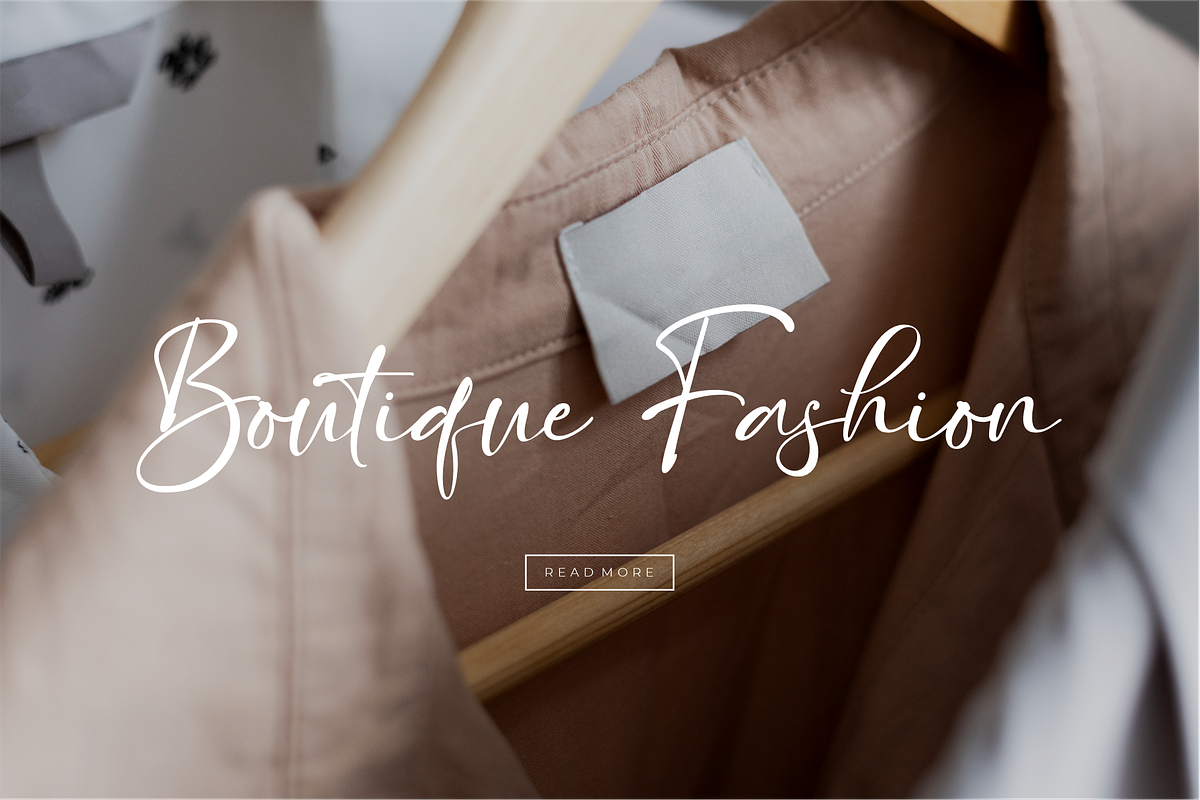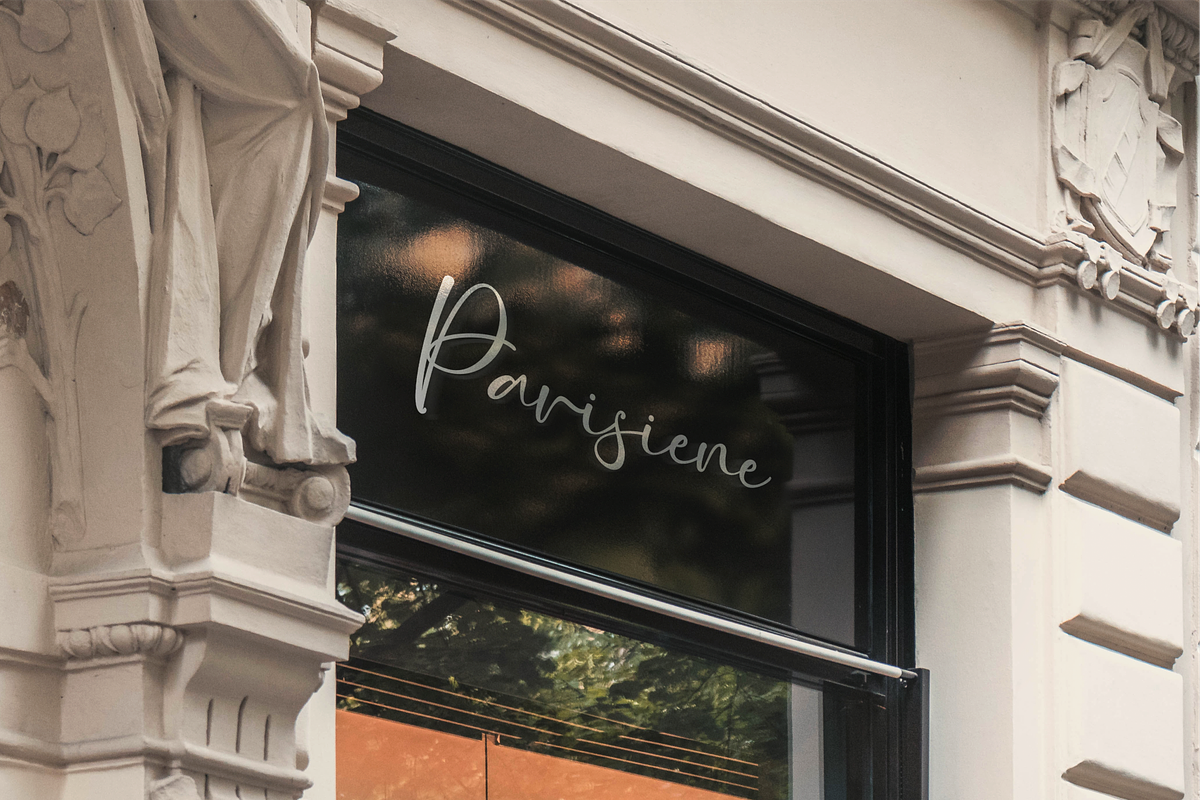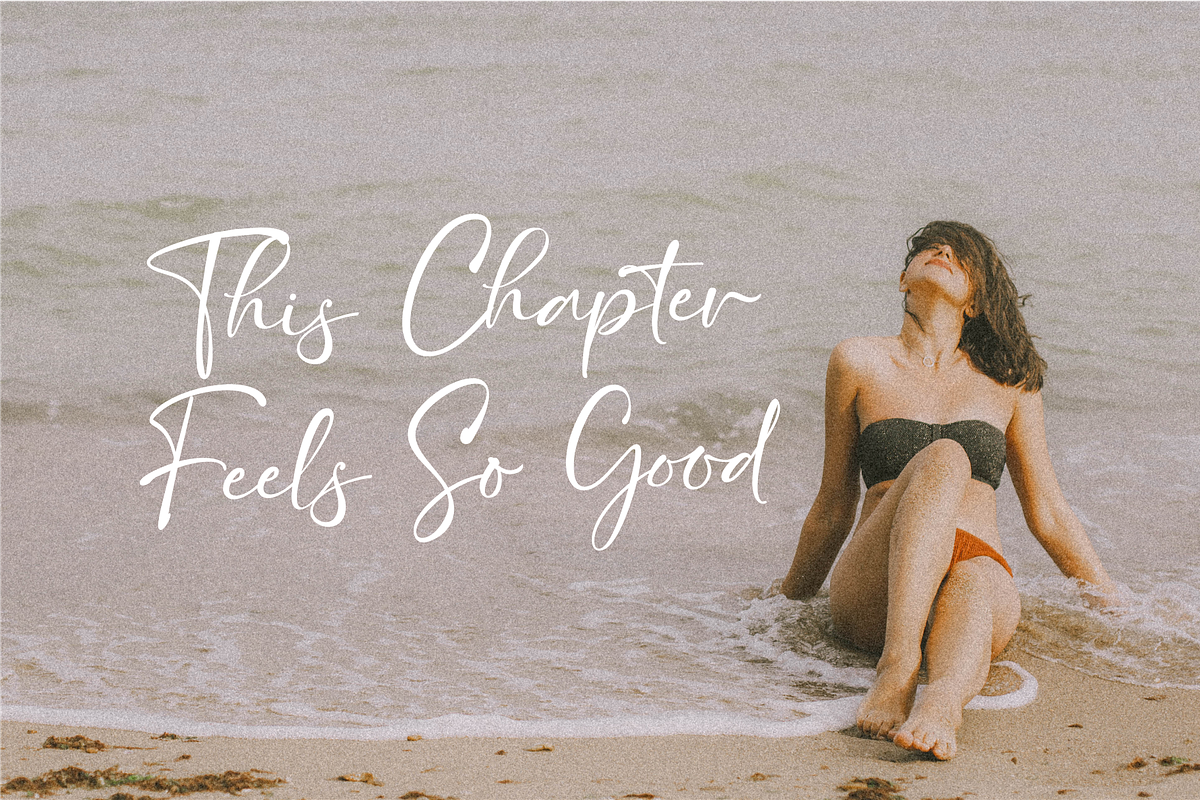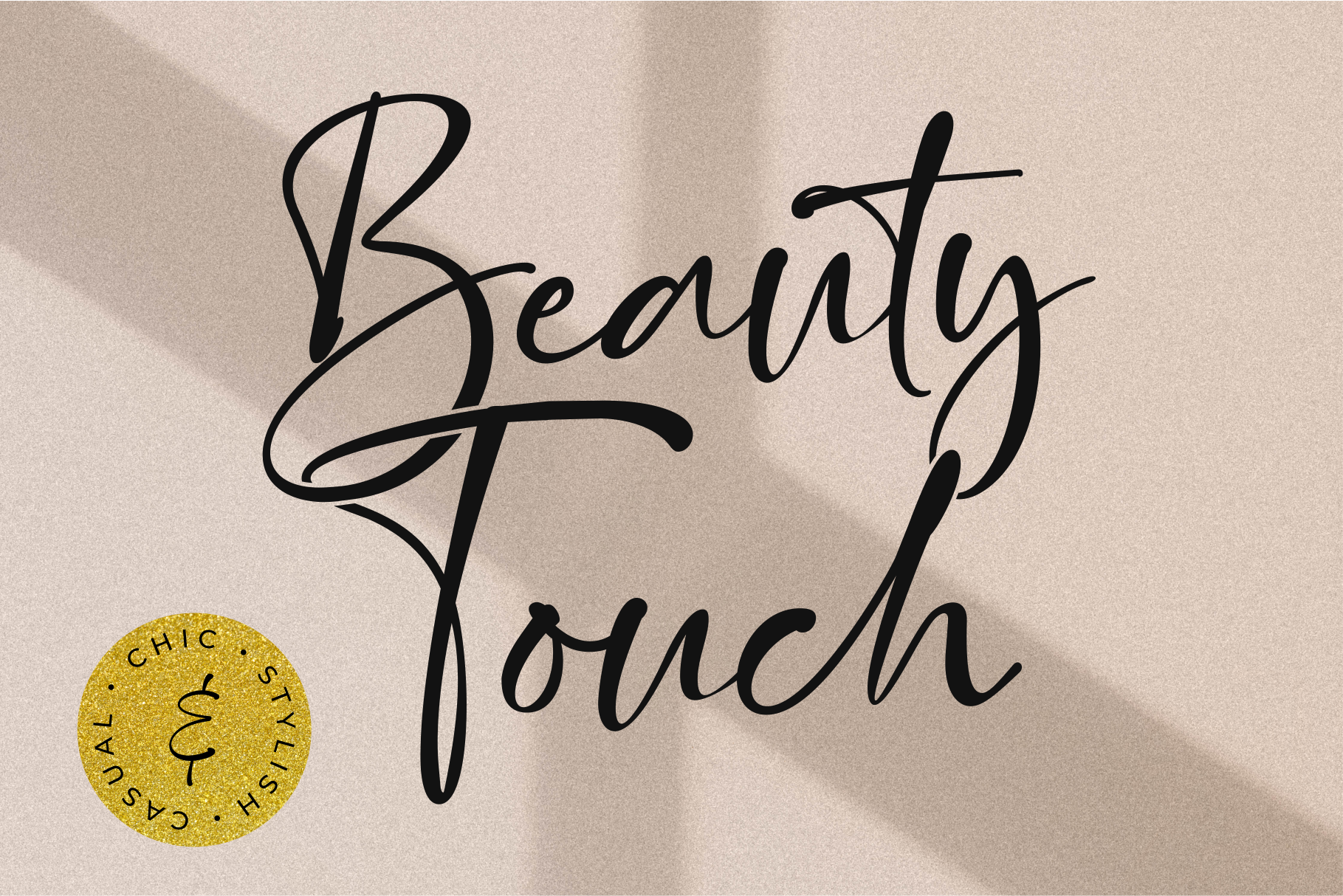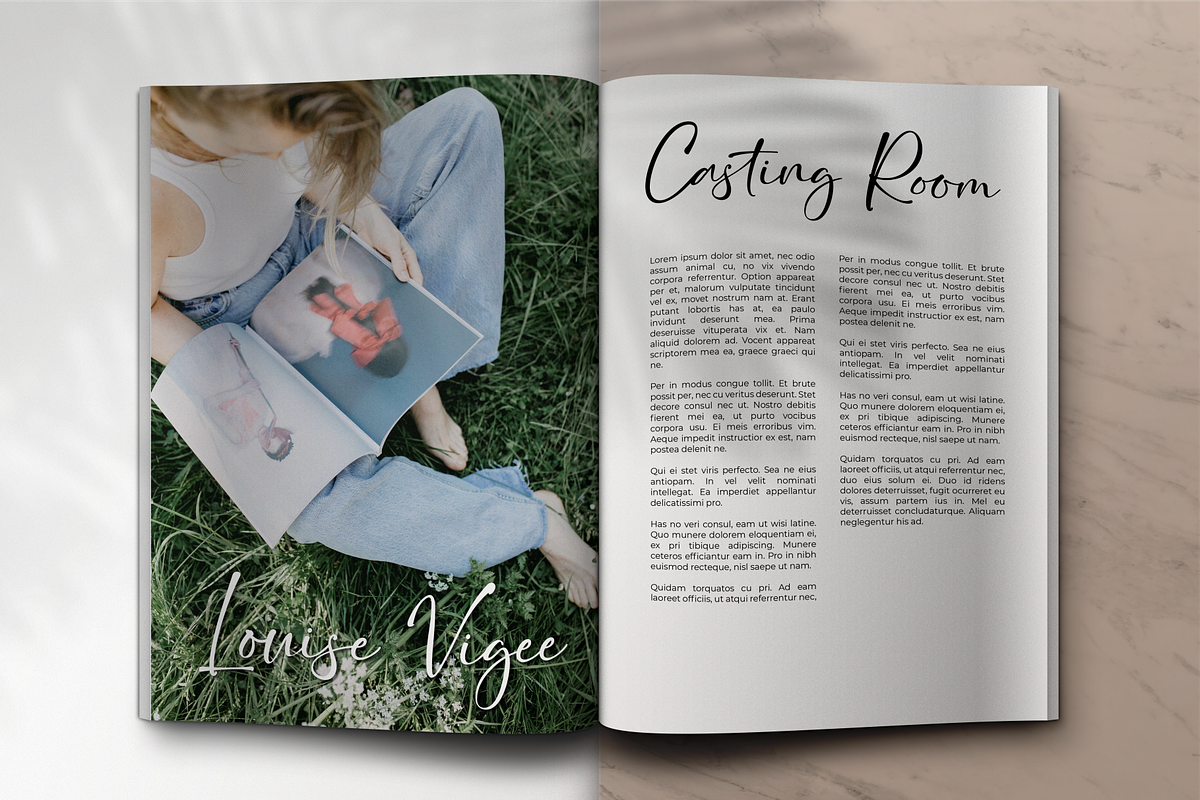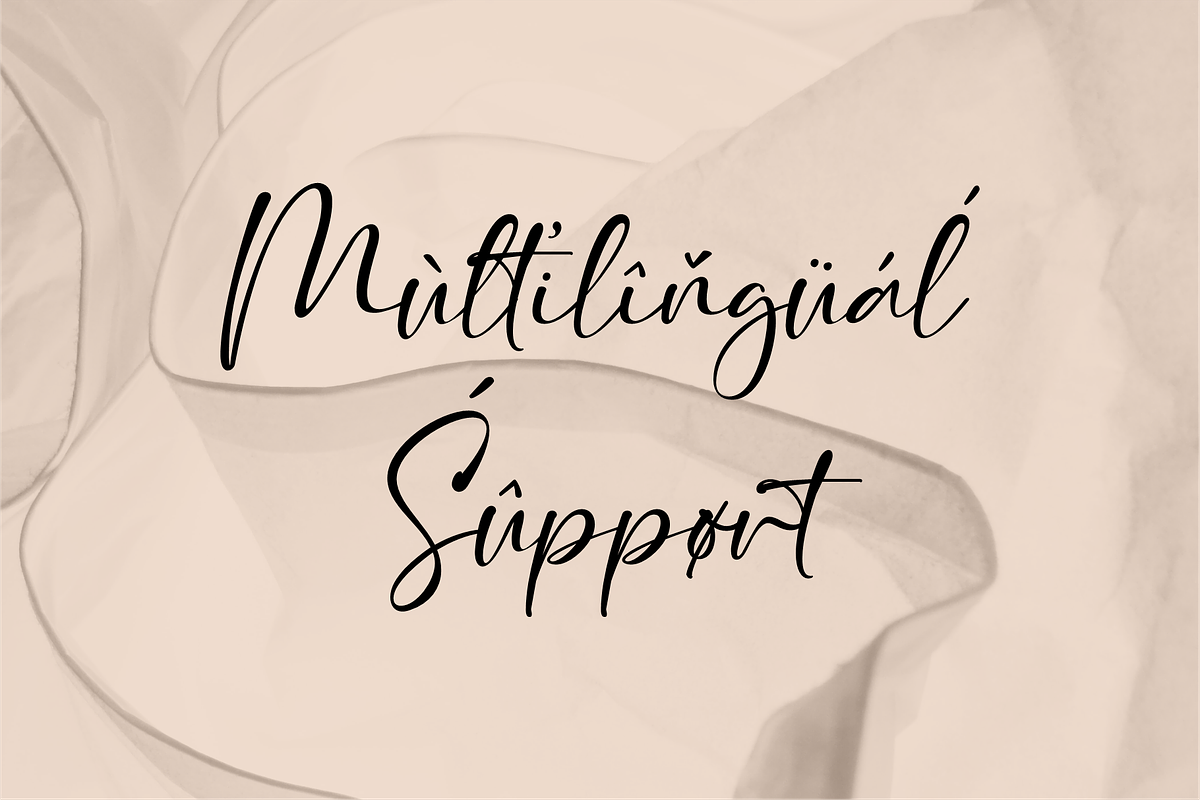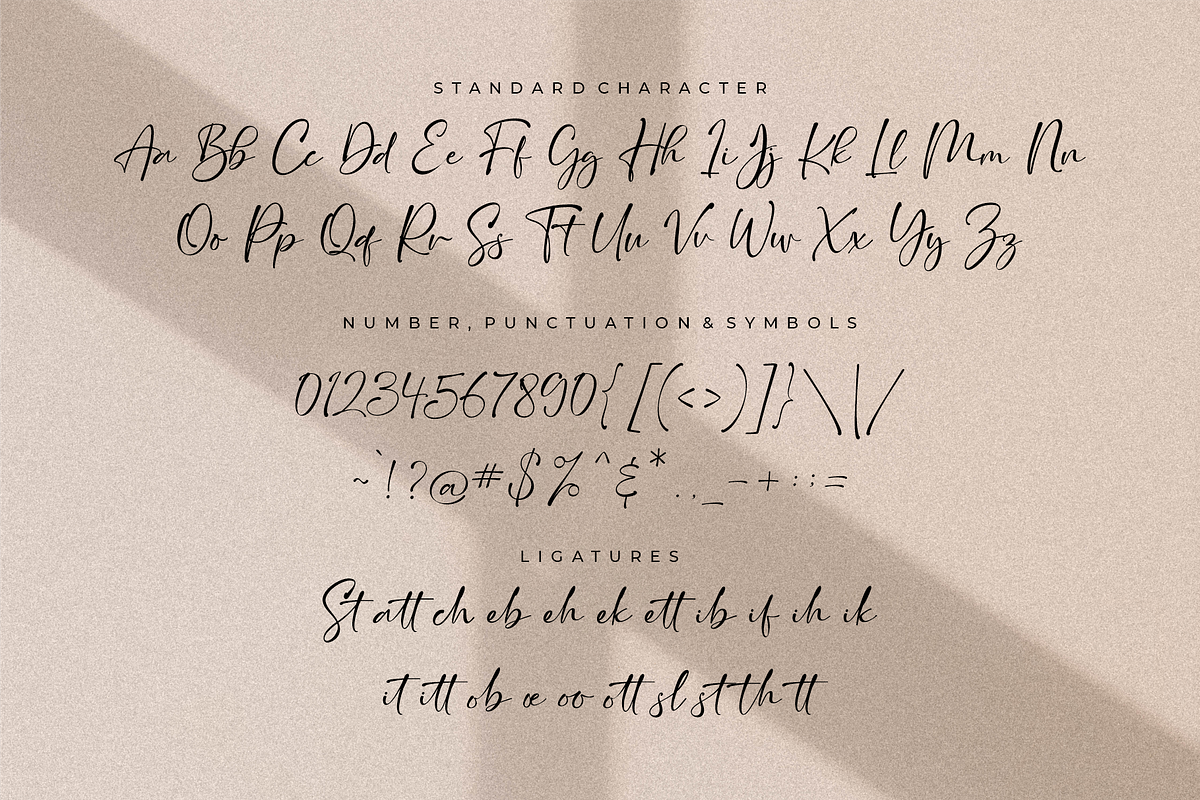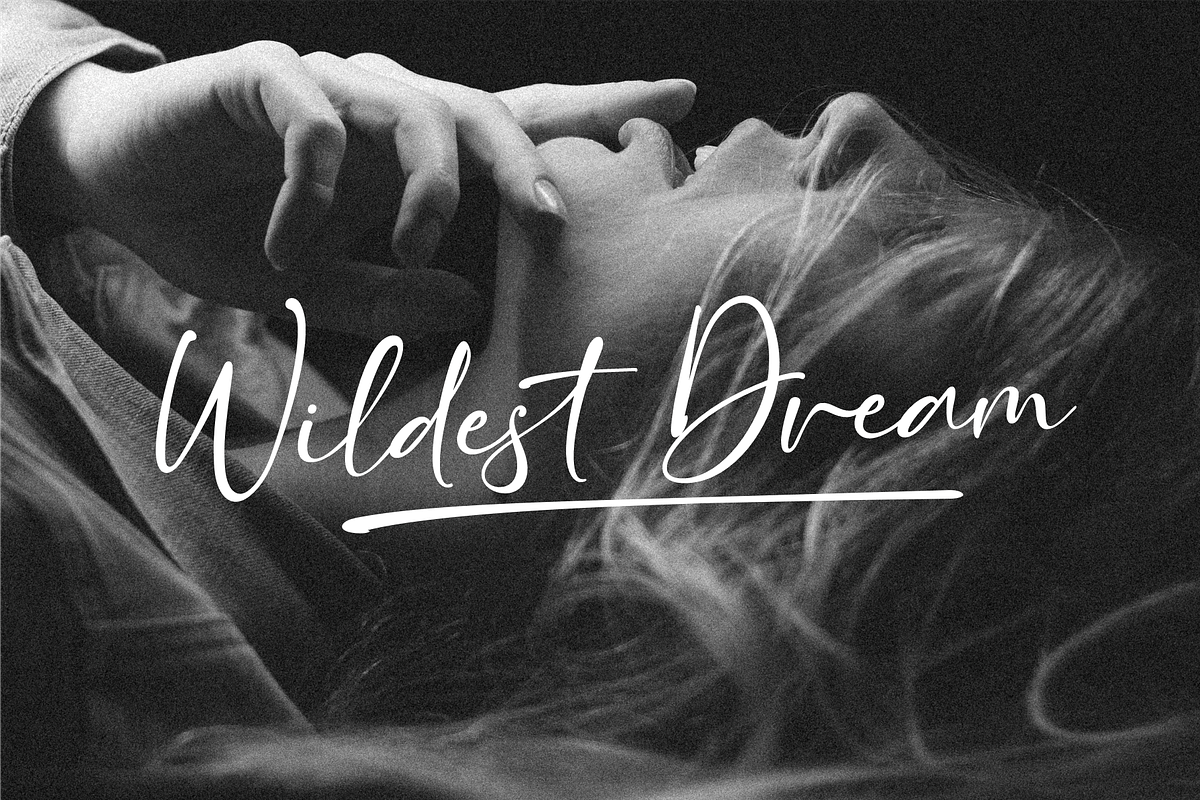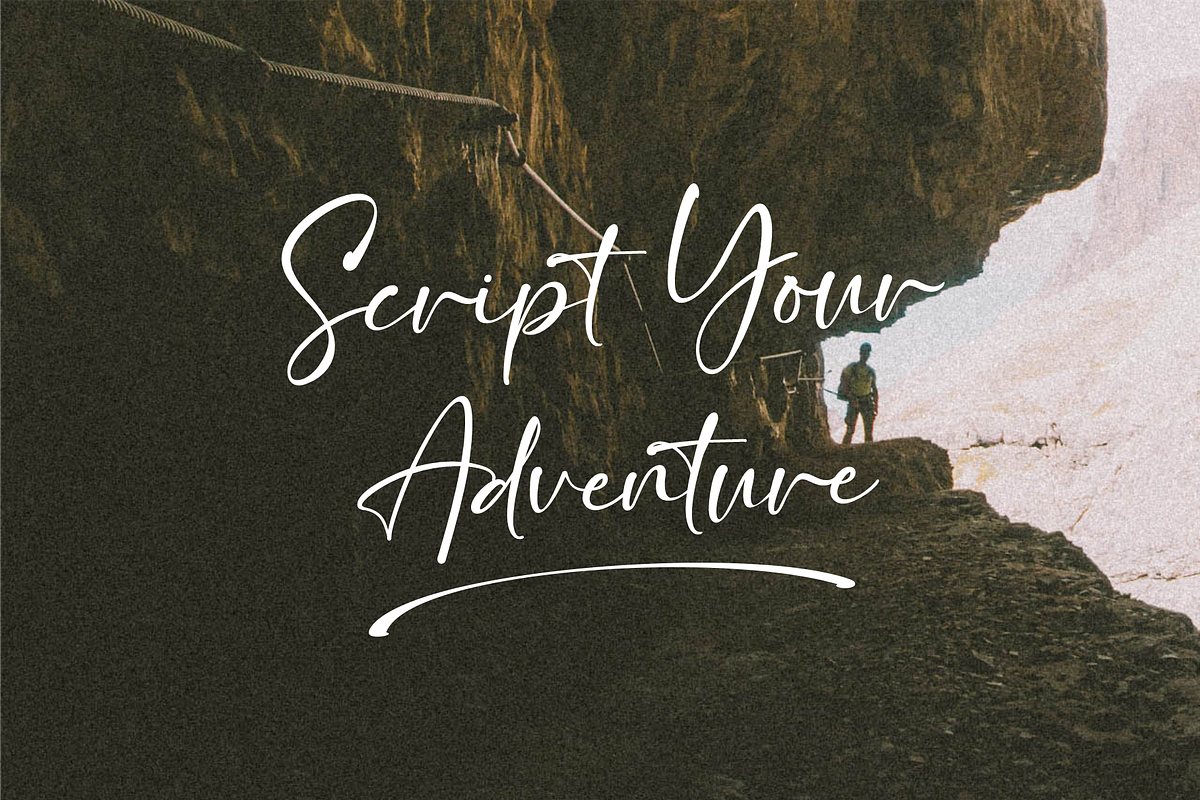
Beauty Touch | Lovely Script Fonts
Beauty Touch is a contemporary script font with natural handwriting style. It's a modern chic with calligraphic touch but still has the ability to represent a powerful message.
This font also has a lot of ligatures. Perfect for your next beautiful typographic project.
Beauty Touch is perfect for branding projects, logo, wedding designs, social media posts, advertisements, product packaging, product designs, label, photography, watermark, invitation, stationery and any projects that need handwriting taste.